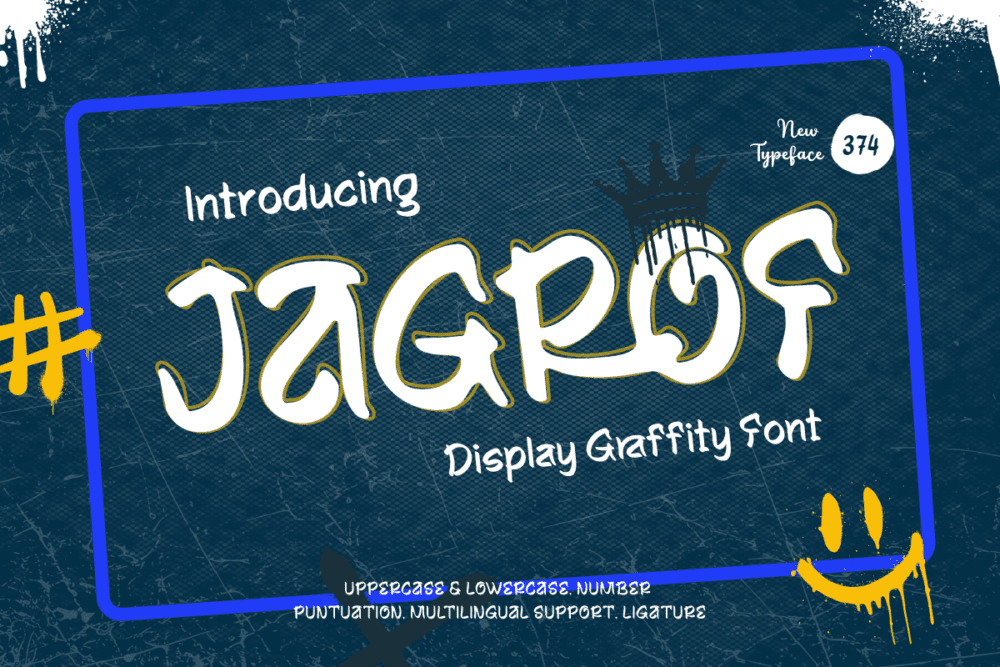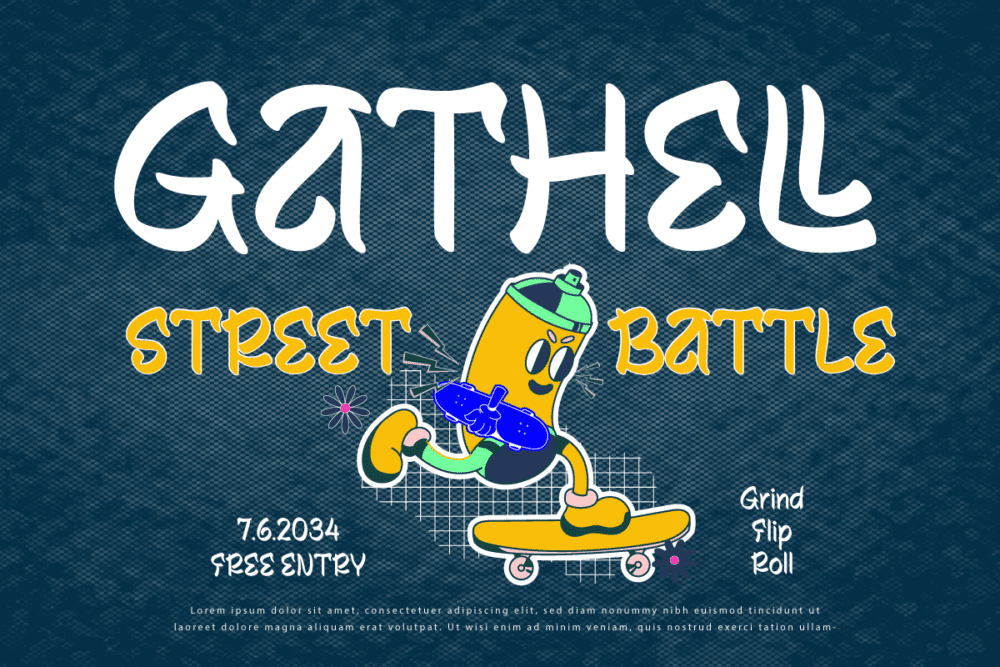
Jagrof Font
Jagrof font is a striking, futuristic typeface that combines angular edges with sleek curves, creating a dynamic and modern appeal. Perfect for tech-inspired designs, gaming graphics, and sci-fi themes, its bold structure ensures strong visual impact. With its distinctive character forms and innovative design, Jagrof brings energy and creativity to projects, standing out in both digital and print mediums.